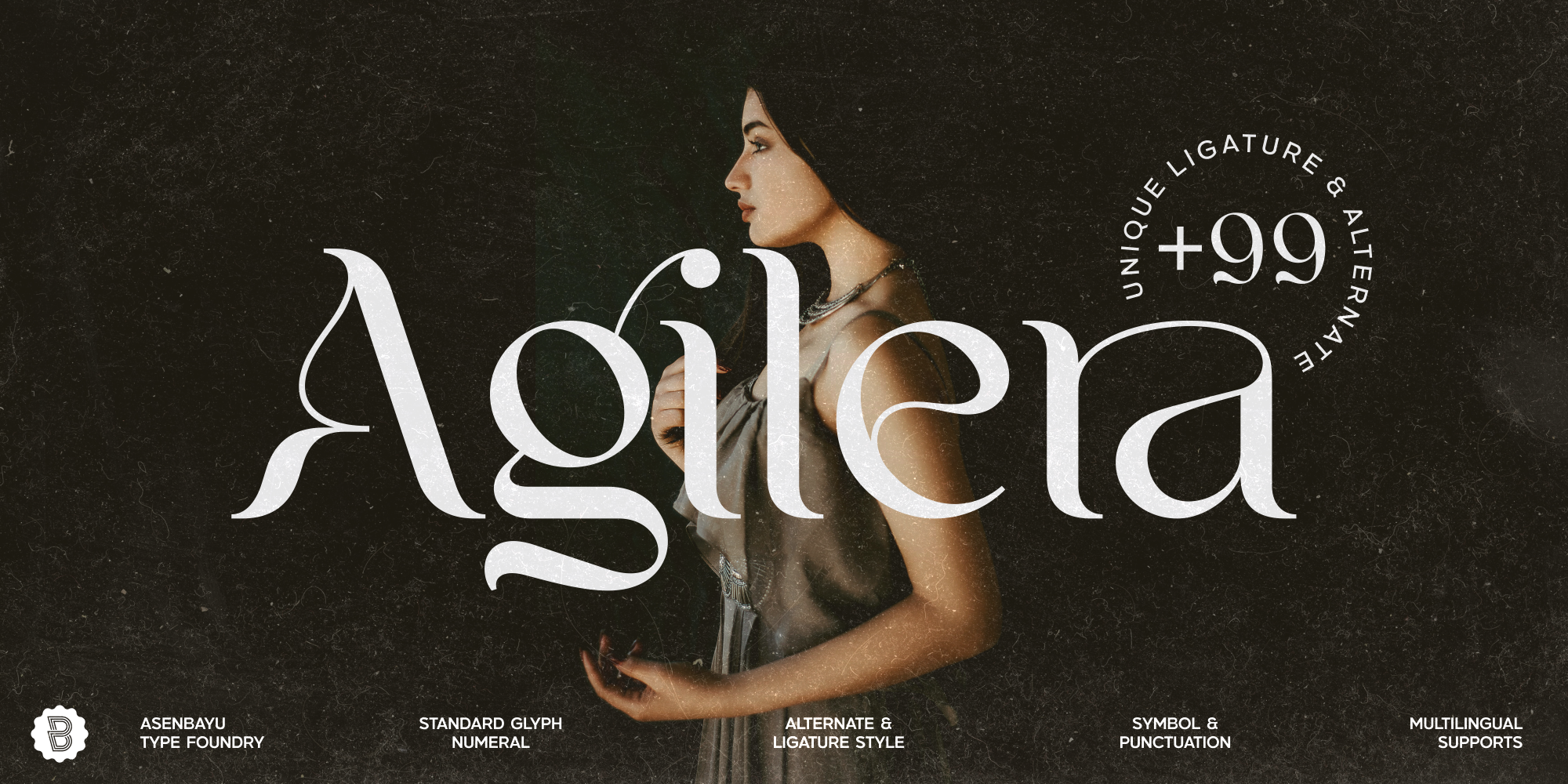
Agilera Font is perfect for tech startup branding, agile methodology presentations, dynamic software interfaces, innovative project management tools, fast-paced consulting firm materials, athletic performance brands, efficiency-focused marketing campaigns, modern productivity applications, streamlined workflow designs, and forward-thinking business communications.
What makes Agilera Font so exciting is its exceptional ability to capture the essence of speed, adaptability, and dynamic progress through sleekly engineered letterforms that seem to move with the fluid precision of cutting-edge technology and the swift responsiveness of agile development methodologies. This font embodies the spirit of rapid iteration and seamless adaptation, featuring streamlined characters that appear designed for maximum velocity and optimal performance. The kinetic letter shapes create an atmosphere of innovation and forward momentum, making every word feel energized with the power to transform ideas into action at unprecedented speed.
The Agilera Font family includes Ultra Light, Light, Regular, Medium, Bold, and Heavy weights, along with condensed and extended variations for flexible applications. Each style maintains the font's distinctive agile character while offering versatility for different performance-driven applications, from subtle interface text to bold headlines that communicate speed, efficiency, and technological advancement.
This dynamic typeface brings authentic agility aesthetics to contemporary design projects. The Agilera Font Free Download offers designers an invaluable resource for creating memorable brand identities that communicate innovation, efficiency, and responsive adaptation to changing market conditions. Whether you're developing agile software company branding, designing productivity tool interfaces, or creating dynamic business transformation materials, this font delivers unmatched energy and professional velocity.
The expertly crafted letterforms in Agilera Font feature flowing curves balanced with sharp angular elements that ensure optimal readability while expressing the rapid decision-making and swift execution characteristic of agile methodologies. Each character has been designed to maintain perfect clarity at high speeds while preserving the distinctive movement-oriented personality that defines modern business agility. The font's performance-focused appearance makes it ideal for applications requiring genuine innovation and adaptive capability.
Technology professionals appreciate how Agilera Font instantly communicates flexibility, speed, and cutting-edge methodology while appealing to audiences seeking efficient solutions and rapid results in an increasingly fast-paced digital economy. The comprehensive character set includes directional symbols, performance indicators, productivity icons, and extensive international language support, ensuring global compatibility while maintaining its distinctive agile identity. This makes it an essential resource for software development companies, consulting firms, project management platforms, and any organization seeking typography that embodies the transformative power of agile thinking and the competitive advantage of lightning-fast adaptation to market opportunities and technological evolution.